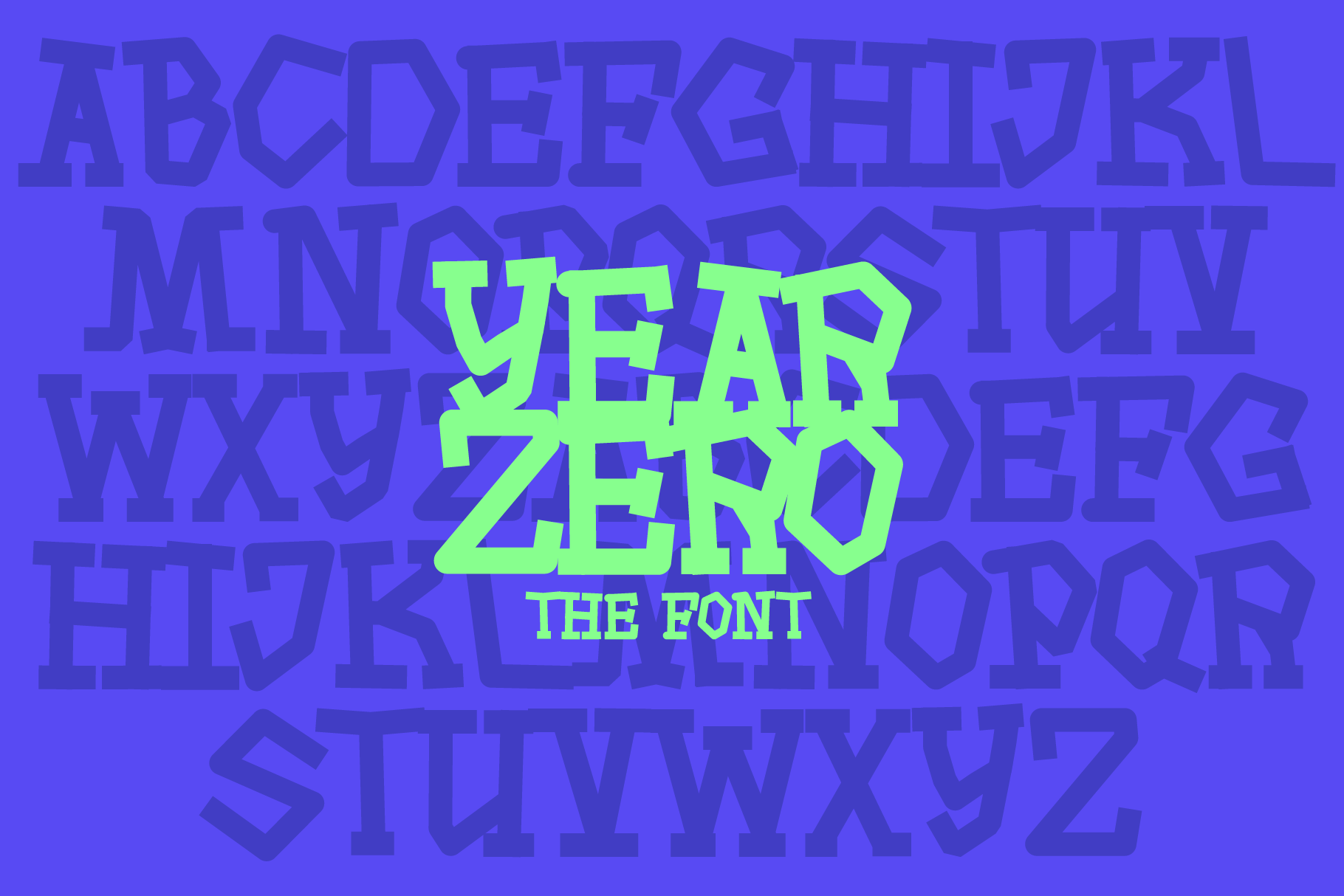
YearZero Font
The “in real life” blend of a hi-tech/lo-tech existence: the YearZero font is a distinctive display font for headings + headlines. It’s a multi weight display family that pays homage to the 1940s (+ other wartime eras) - without the nostalgia often displayed when recounting times of war. It’s an attempt to pay respect to an iconic era + a nod to facing the future of “the aftermath.”
A new perspective on the cyclical reality of war: although fonts are usually in an idle state, the font shapes suggest movement + growth: a magnificent impermanence of annual harvests + perennial reemergence.
One world has ended; a new, uncertain one begins.